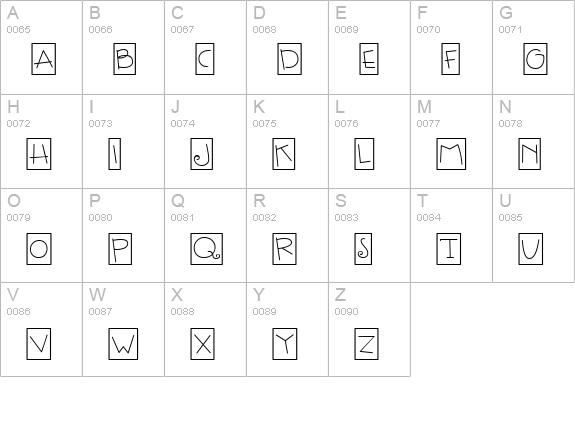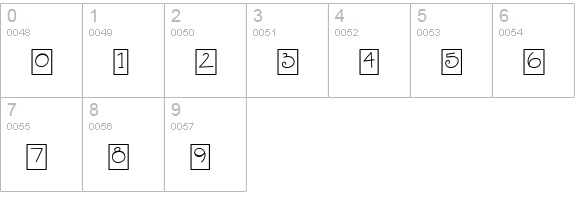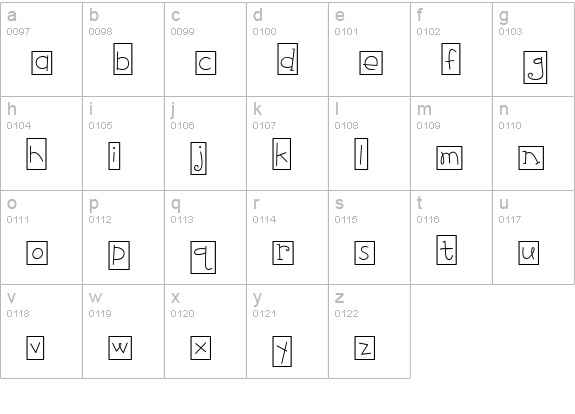
CK Fun Boxes Font Details
Introducing CK Fun Boxes font, a whimsical and playful typeface that exudes charm and creativity. With its quirky shapes and bouncy letterforms, this font is perfect for adding a touch of fun to your designs. Whether you're working on a children's book, party invitation, or branding project, CK Fun Boxes will bring a delightful and lively energy to your work. What's even better is that CK Fun Boxes font is available for free download at FontsMarket.com. So go ahead and unleash your creativity with this cheerful and energetic typeface that is sure to put a smile on everyone's face.